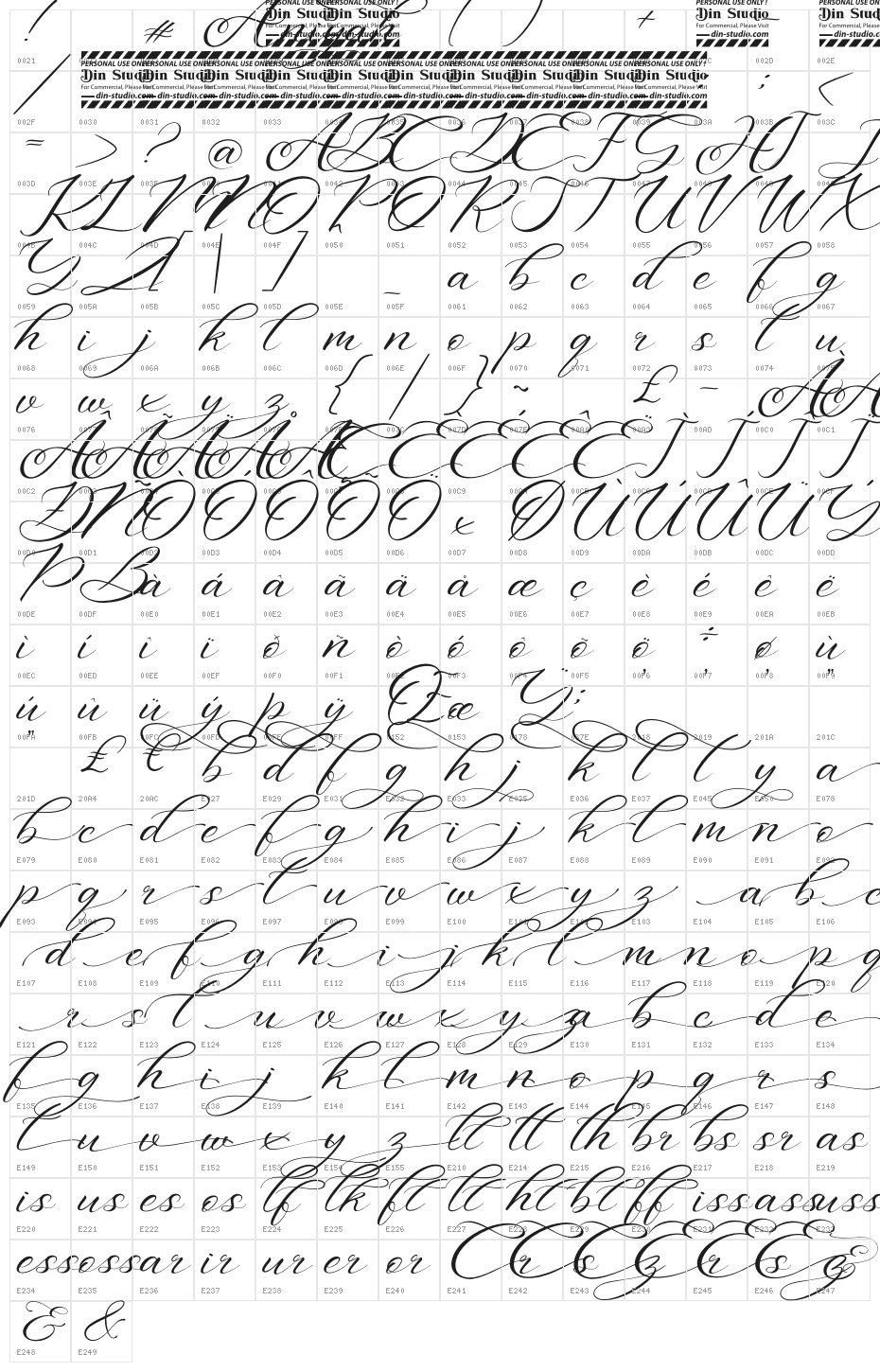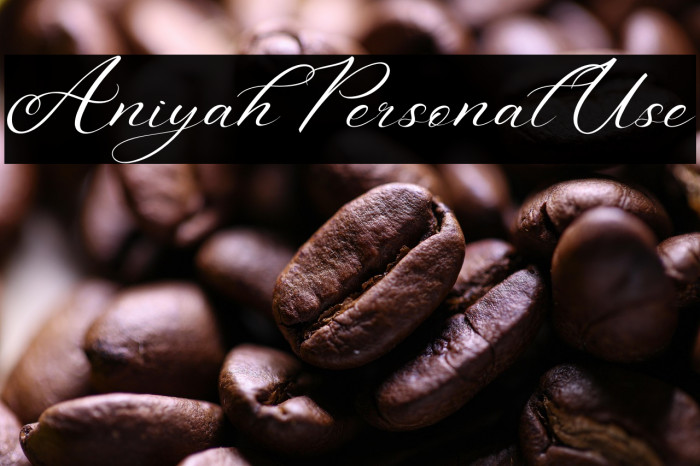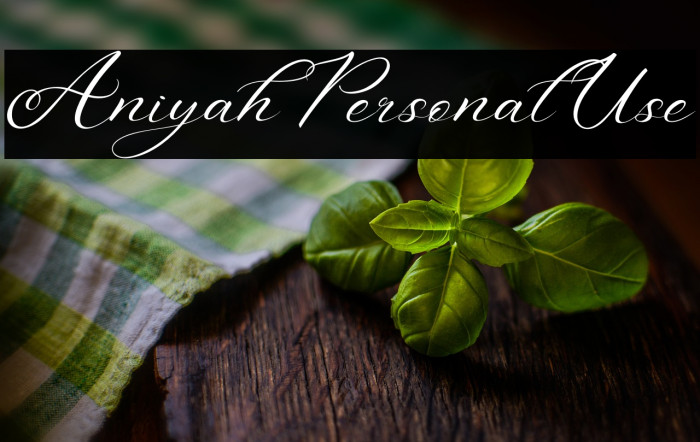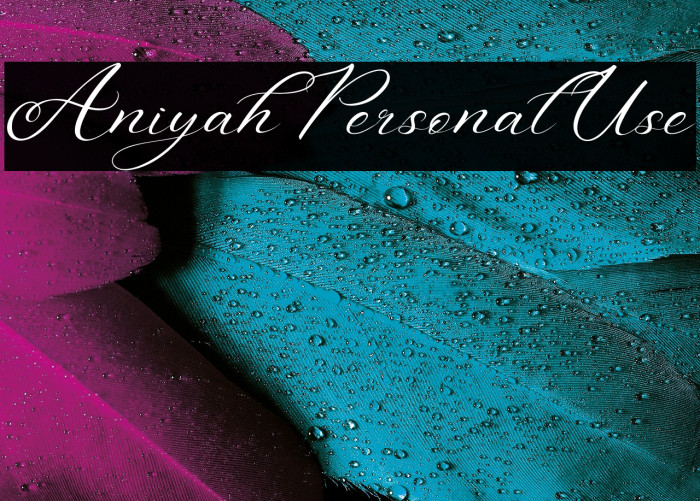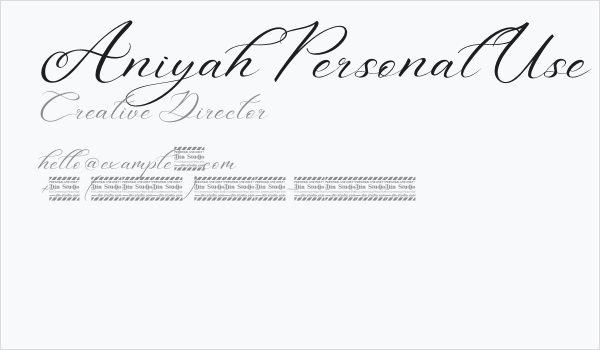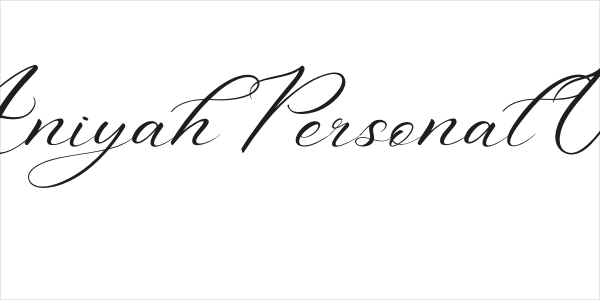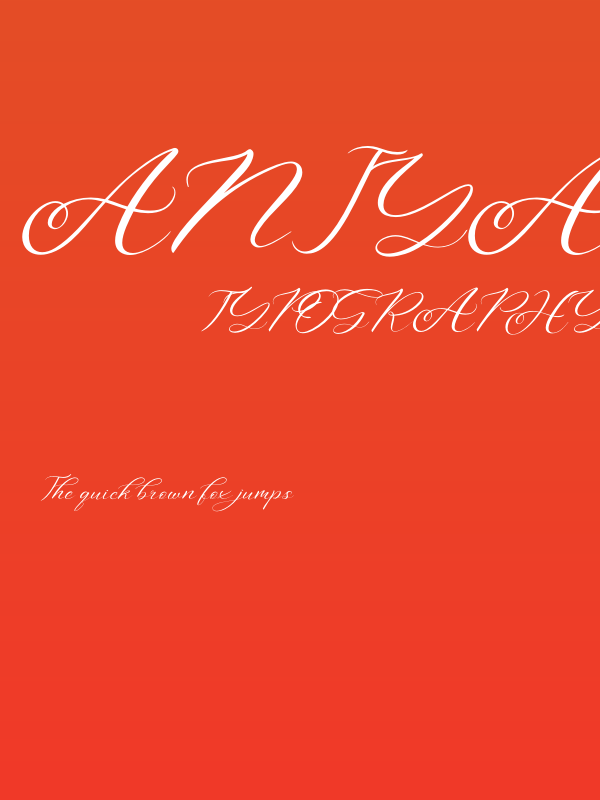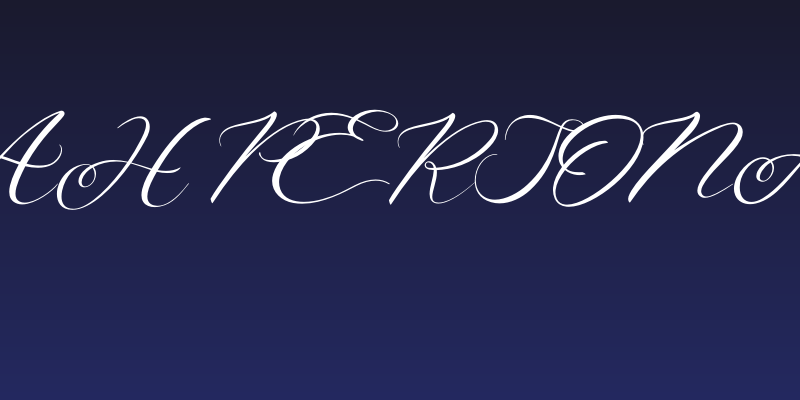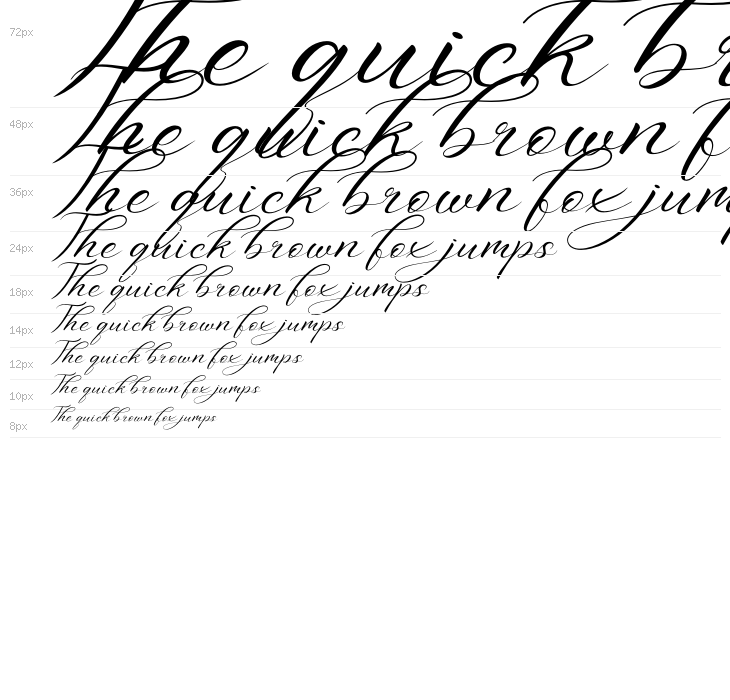
Aniyah Personal Use Font
Aniyah Personal Use Description
This elegant script font features a flowing, cursive style with intricate loops and flourishes. The uppercase letters are grand and sweeping, while the lowercase letters maintain a consistent, graceful flow. The font exudes a sense of sophistication and is reminiscent of traditional calligraphy. It is designed with high contrast between thick and thin strokes, enhancing its decorative appeal. The characters are closely spaced, adding to the cohesive and connected look of the text. This font is ideal for projects that require a touch of elegance and formality.
| Overall Style | Elegant, Decorative |